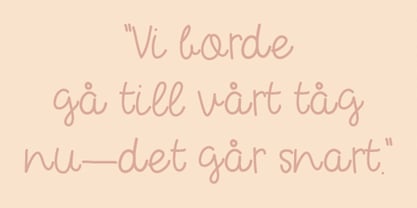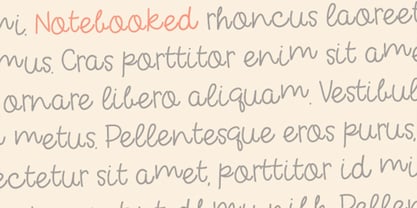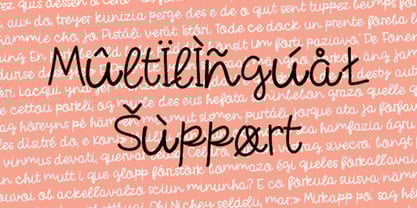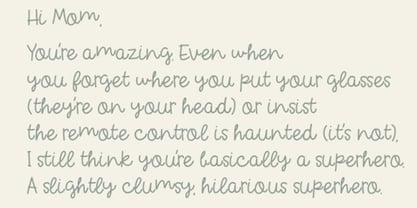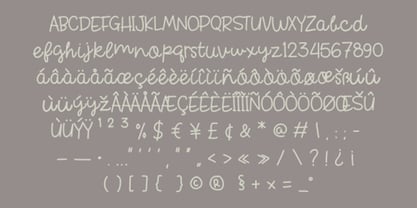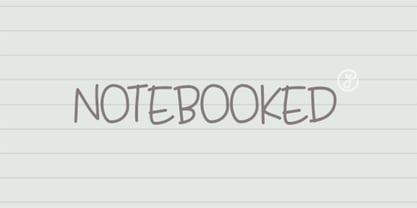
Notebooked
by Yebhu
The Notebooked Font Family was designed by Untung Prasetyo and published by Yebhu. Notebooked contains 1 styles. More about this family
Notebooked Font: The Emotional and Timeless Typeface
Introducing Notebooked , a captivating new typeface inspired by the tender ache of love and the bittersweet beauty of heartfelt memories. Designed for dreamers, romantics, and storytellers alike, Notebooked is more than just a font—it's an emotional experience. With its graceful curves, delicate imperfections, and nostalgic charm, this font captures the raw essence of sentimentality, making it perfect for projects that tug at the heartstrings.
The Essence of Notebooked Font
Notebooked Font is meticulously crafted to evoke deep emotions and timeless romance. Whether you're creating designs that celebrate love, longing, or cherished memories, Notebooked delivers a touch of elegance and vulnerability. It’s the typographic embodiment of a love letter—personal, intimate, and unforgettable.
Key Features:
• Sentimental Minimalism:
Notebooked Font combines soft, flowing lines with subtle imperfections, creating a balance of simplicity and emotional depth. Its design feels both modern and timeless, ensuring it resonates across generations.
• Emotional Personality:
Each character in Notebooked Font has been thoughtfully designed to reflect the nuances of human emotion. From its gentle curves to its slightly uneven edges, this font feels alive—like a whispered confession or a tear-stained page.
• Versatile Use:
While rooted in romance, Notebooked Font is incredibly versatile. Use it for heartfelt quotes, wedding invitations, poetry collections, branding projects, or any design that calls for warmth and authenticity. It works beautifully for personal creations and professional campaigns alike.
• Multilingual Support:
Notebooked Font supports multiple languages, ensuring inclusivity for global audiences. Express your emotions in style, no matter where you are in the world.
• Digital-Friendly Design:
Optimized for both print and digital use, Notebooked Font shines on screens of all sizes. From Instagram captions to website headers, it maintains its clarity and emotional impact.
Mood & Personality:
Notebooked Font embodies the spirit of love, nostalgia, and vulnerability. Imagine the quiet moment of reflection as you flip through an old journal or the lingering feeling of a heartfelt goodbye—that’s the energy Notebooked brings to your designs. It’s soft without being weak, elegant without being overdone, and emotional without losing its sophistication.
Ideal Use Cases:
• Romantic Quotes & Poetry:
Pair Notebooked Font with soul-stirring quotes about love, heartbreak, or self-discovery. Its expressive design makes every word feel intentional and deeply felt.
• Wedding Invitations & Save-the-Dates:
Elevate your special day with Notebooked Font. Its romantic charm adds a touch of elegance and intimacy to your wedding stationery.
• Social Media Posts & Captions:
Make your feed feel more personal and heartfelt. Use Notebooked Font for Instagram captions, Pinterest graphics, or TikTok overlays to connect with your audience on an emotional level.
• Branding & Marketing Materials:
Perfect for brands targeting sentimental or romantic audiences. Use it for product packaging, advertisements, or campaigns that need a warm, inviting look.
• Event Invitations & Posters:
Hosting a meaningful event? Notebooked Font subtly communicates elegance and emotional resonance, whether it’s for a bridal shower, anniversary celebration, or art exhibition.
• Personal Projects:
If you’re designing journals, scrapbooks, or personal websites, Notebooked Font adds a unique flair that stands out while staying true to its emotional roots.
Why Choose Notebooked Font?
In a world that often feels rushed and disconnected, people crave authenticity and emotional connection—and Notebooked Font encapsulates that perfectly. It’s not just a tool for communication; it’s a visual representation of modern values like vulnerability, love, and storytelling. Whether you’re crafting a message of hope, heartbreak, or happiness, Notebooked Font ensures your words leave a lasting impression.
Let Your Words Speak from the Heart
With Notebooked Font, you can communicate your message clearly and emotionally, whether it’s playful, poetic, or profoundly personal. Let your designs resonate deeply, leaving a trail of sentimentality and sincerity.
P.S.: Remember, Notebooked isn’t just about romance—it’s about connection. And with Notebooked Font, you’ll create connections that linger long after the first glance.